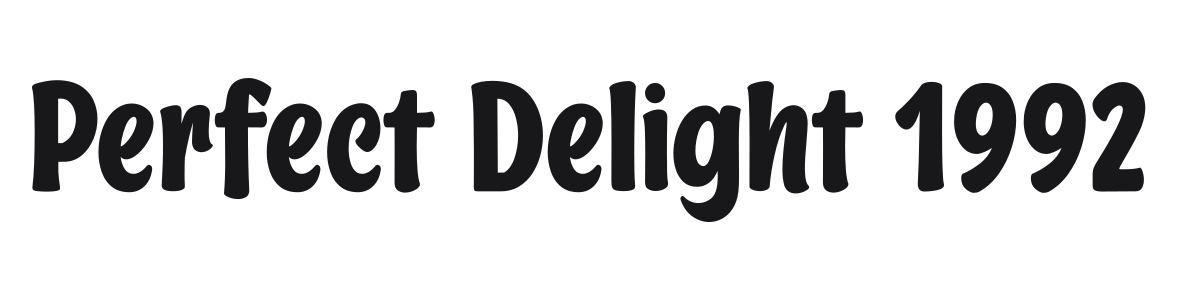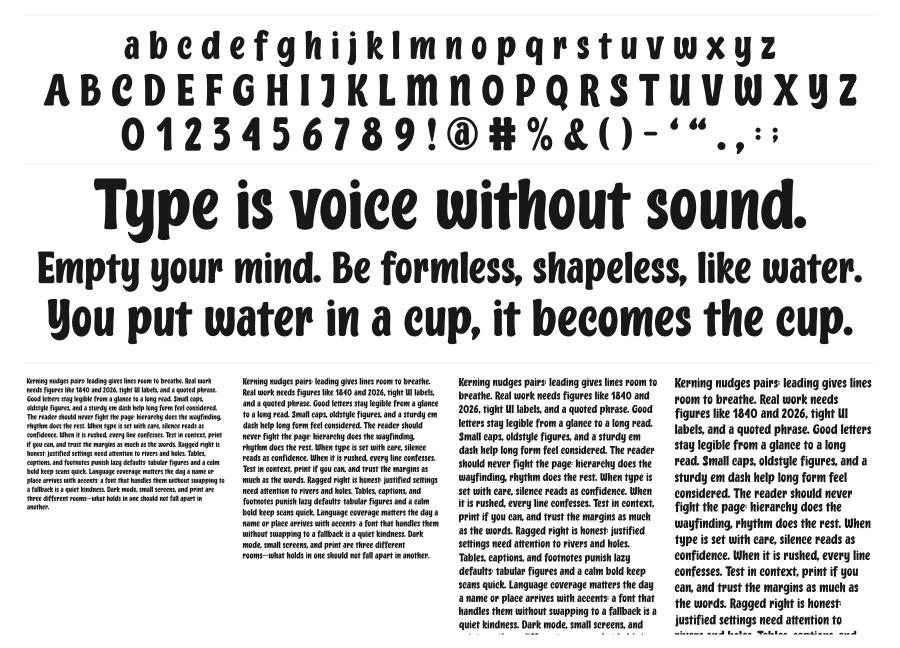
Perfect Delight 1992
Perfect Delight 1992 is a bold, condensed display font with a punchy retro personality rooted in 1990s graphic culture. Its heavy weight and organic rounded terminals give it a hand-drawn warmth that feels both nostalgic and energetic. Great for food packaging, event posters, and anything that needs a loud, friendly headline.